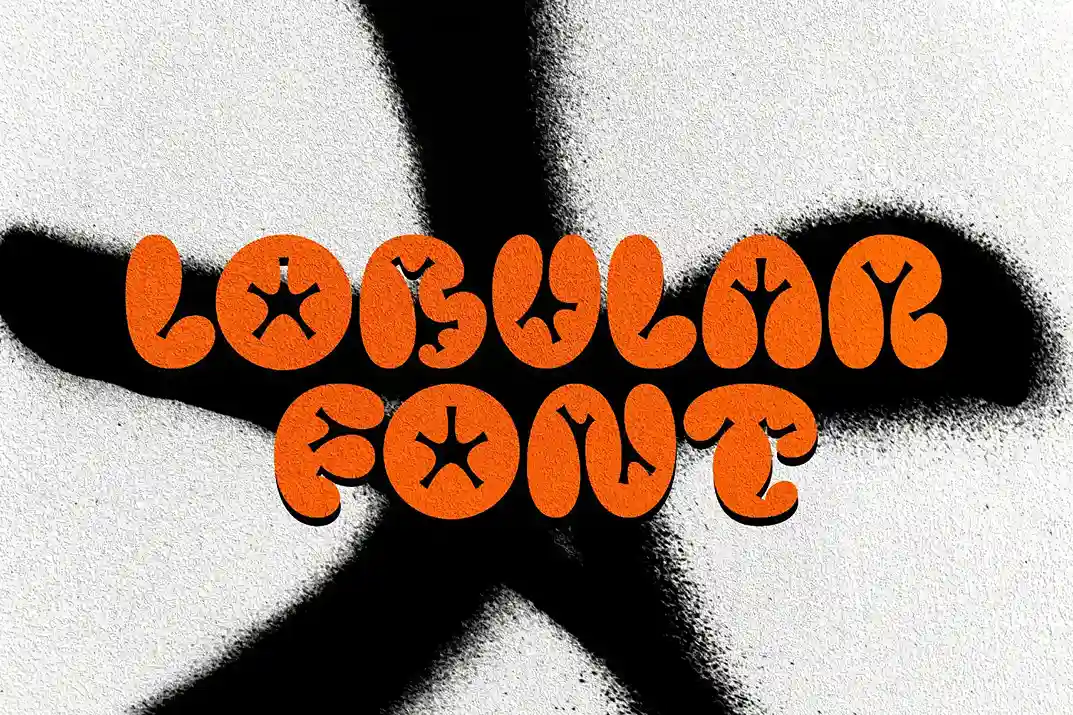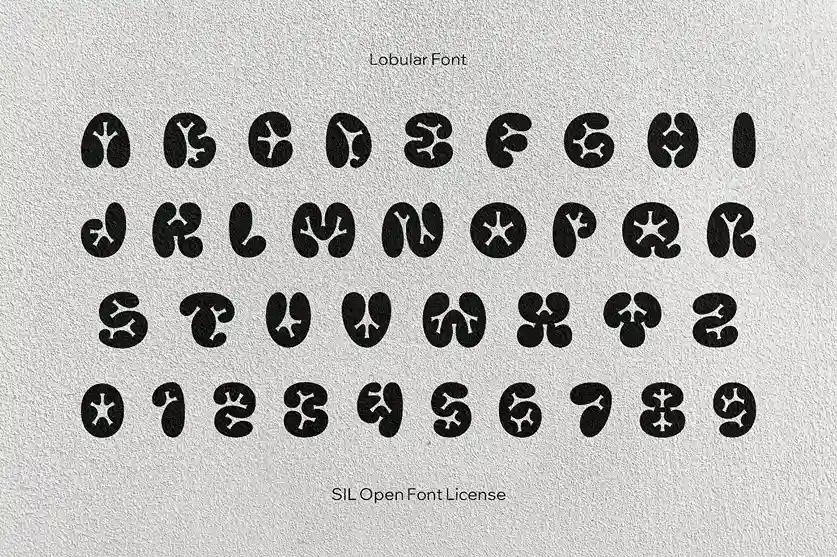
Lobular is a bold display font with attitude. It pulls its energy from late-90s hand-painted graffiti and street lettering, giving your designs a playful, urban voice that instantly grabs attention. The letterforms are chunky, rounded, and expressive, with a bubbly rhythm that feels handmade rather than mechanical. What this really means is your text looks alive, not flat or generic.
This font is built for projects that need personality. Lobular works especially well in streetwear branding, skate logos, poster headlines, and music visuals where style matters as much as the message. Its strong shapes make it perfect for loud, confident designs that are meant to be seen from a distance. Whether you are creating event artwork or bold social media graphics, Lobular makes sure your words don’t fade into the background.
One of the strongest uses of Lobular is in youth-focused and pop-culture projects. It fits naturally into party flyers, festival posters, album covers, and sticker-style branding. The font conveys a fun, rebellious tone that works well for snack packaging, apparel graphics, and lifestyle brands seeking an energetic and modern aesthetic. If your audience is young, creative, or trend-driven, this font speaks their language.
Lobular is also a solid choice for digital content. It looks powerful in YouTube thumbnails, streaming visuals, cover art, and promotional banners where you only have a second to catch attention. The rounded letterforms stay readable even at smaller sizes, while larger headlines feel bold and expressive without becoming messy.
From a technical point of view, the font is clean and reliable. It includes uppercase letters only, which reinforces its strong display nature. Along with that, you get numbers, punctuation, and symbols, making it usable across real-world design projects, not just decorative ones. The font also supports international characters, offering multilingual coverage across extended Latin scripts. That makes it suitable for global brands and creators working in multiple languages.
Lobular pairs well with simple sans-serif fonts. Use it for headlines and logos, then balance it with clean body text for contrast. This approach keeps your design readable while still letting Lobular deliver its street-style impact.
If you are tired of safe, overused display fonts and want something that feels fun, urban, and confident, Lobular is a smart addition to your font collection. It brings graffiti-inspired character without sacrificing clarity, making it ideal for branding, merch, music, and bold visual storytelling.